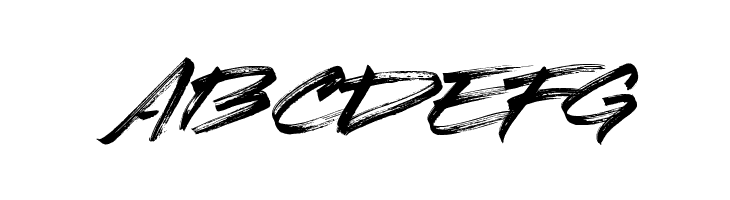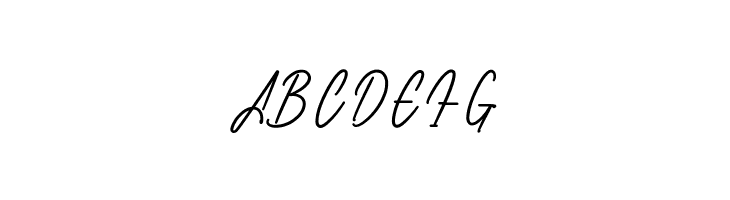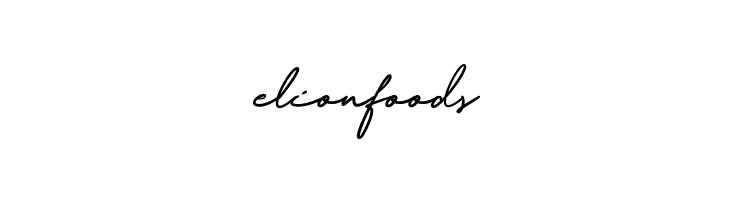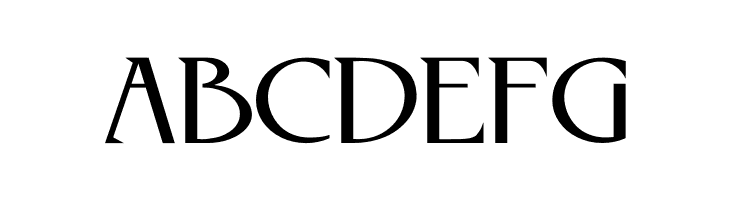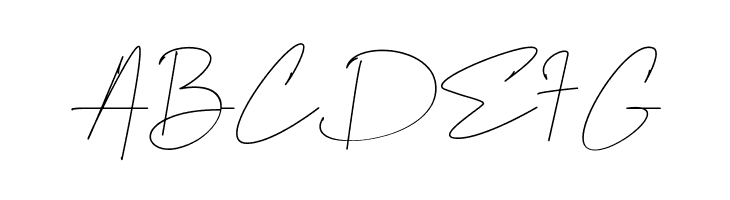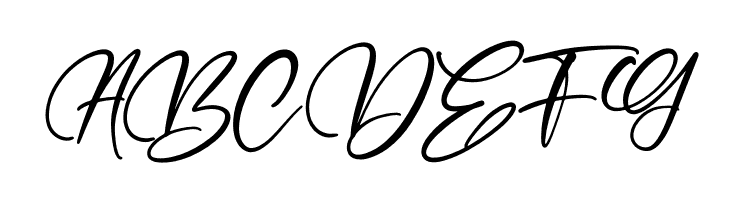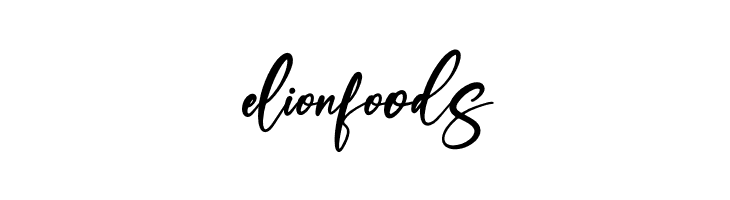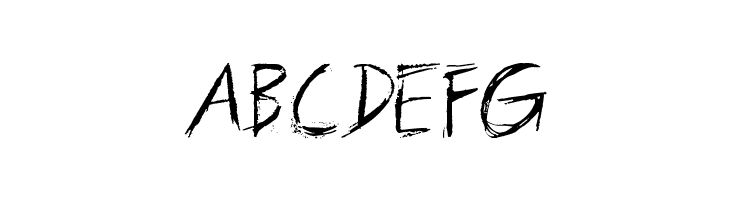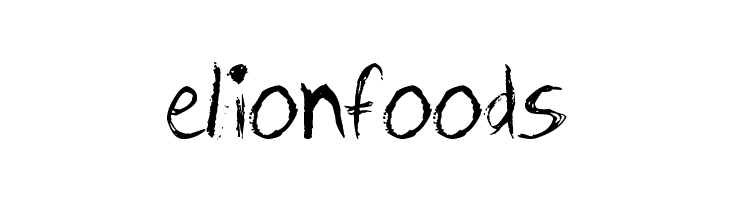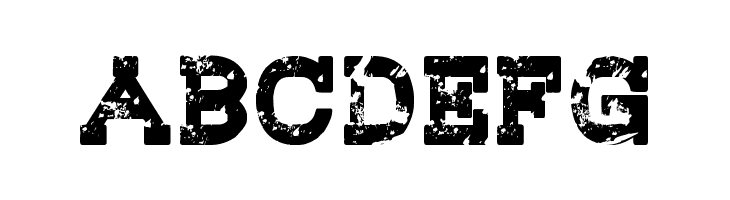
• Rebel Beat
A bold, expressive font with a hand-drawn, graffiti-inspired style.
• RebelRedux
A modern, artistic font with sharp angles and smooth curves.
• RebelRedux
A modern, elegant font with sharp angles and smooth curves.
• RECOGNITION
A bold, futuristic font with geometric shapes and sharp angles.
• Redjeansky
A cursive, handwritten font with elegant, flowing letters.
• Redtowns
A bold, brush-style font with dynamic, hand-drawn strokes.
• Redwood Creek
A bold, distressed font with a vintage, rugged appearance.
• Refliottis
A dynamic and elegant script font with fluid, cursive strokes.
• Remains / Zombie
• Renadar
A modern, elegant handwritten font with fluid strokes and a dynamic slant.